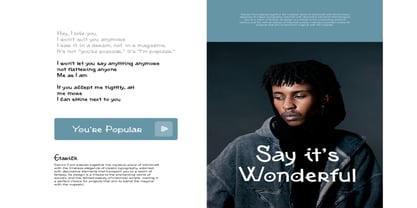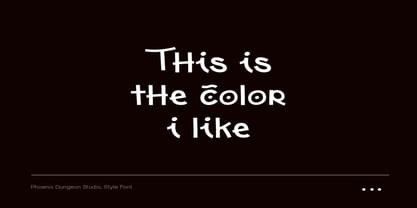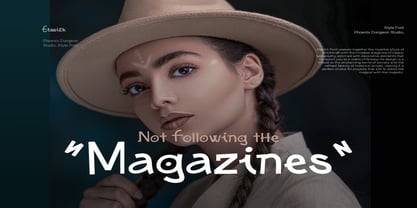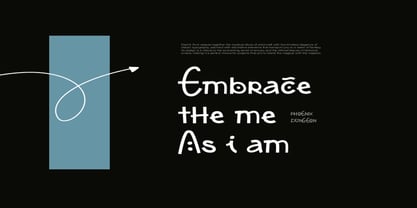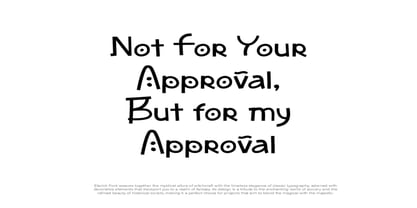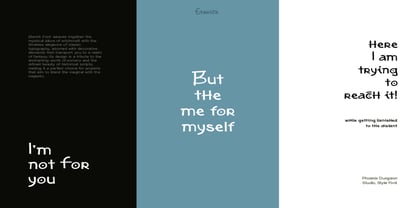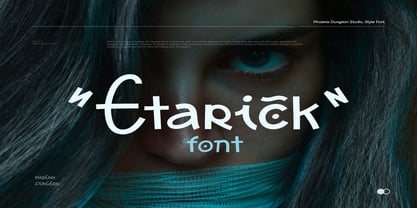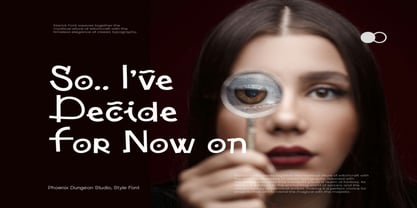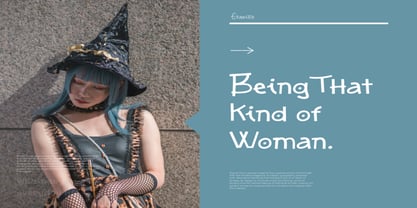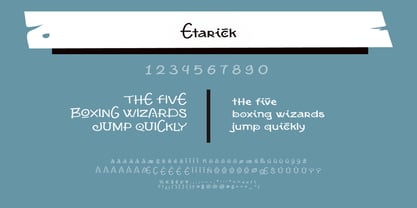
Etarick
by Phoenix Group
The Etarick Font Family was designed by Alif Naufal Muzakki and published by Phoenix Group. Etarick contains 1 styles. More about this family
Etarick Font weaves together the mystical allure of witchcraft with the timeless elegance of classic typography, adorned with decorative elements that transport you to a realm of fantasy. Its design is a tribute to the enchanting world of sorcery and the refined beauty of historical scripts, making it a perfect choice for projects that aim to blend the magical with the majestic.
Designers: Alif Naufal Muzakki
Foundry: Phoenix Group